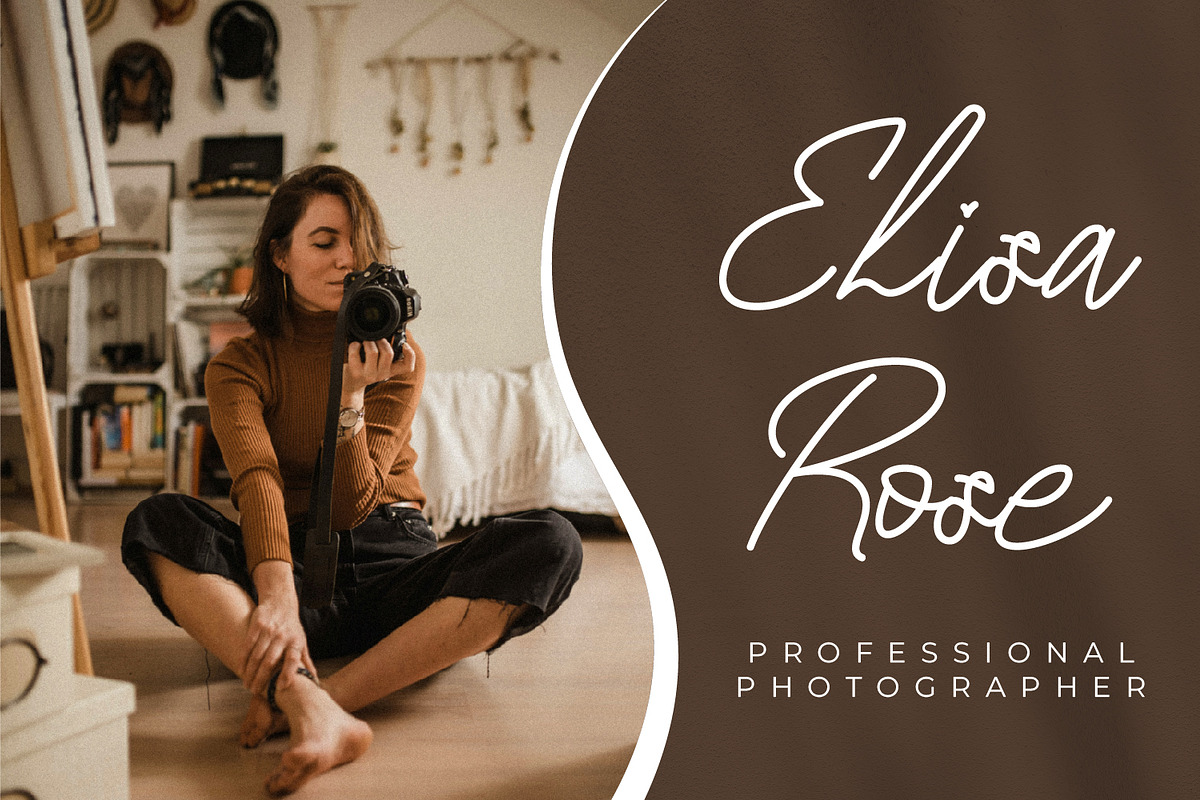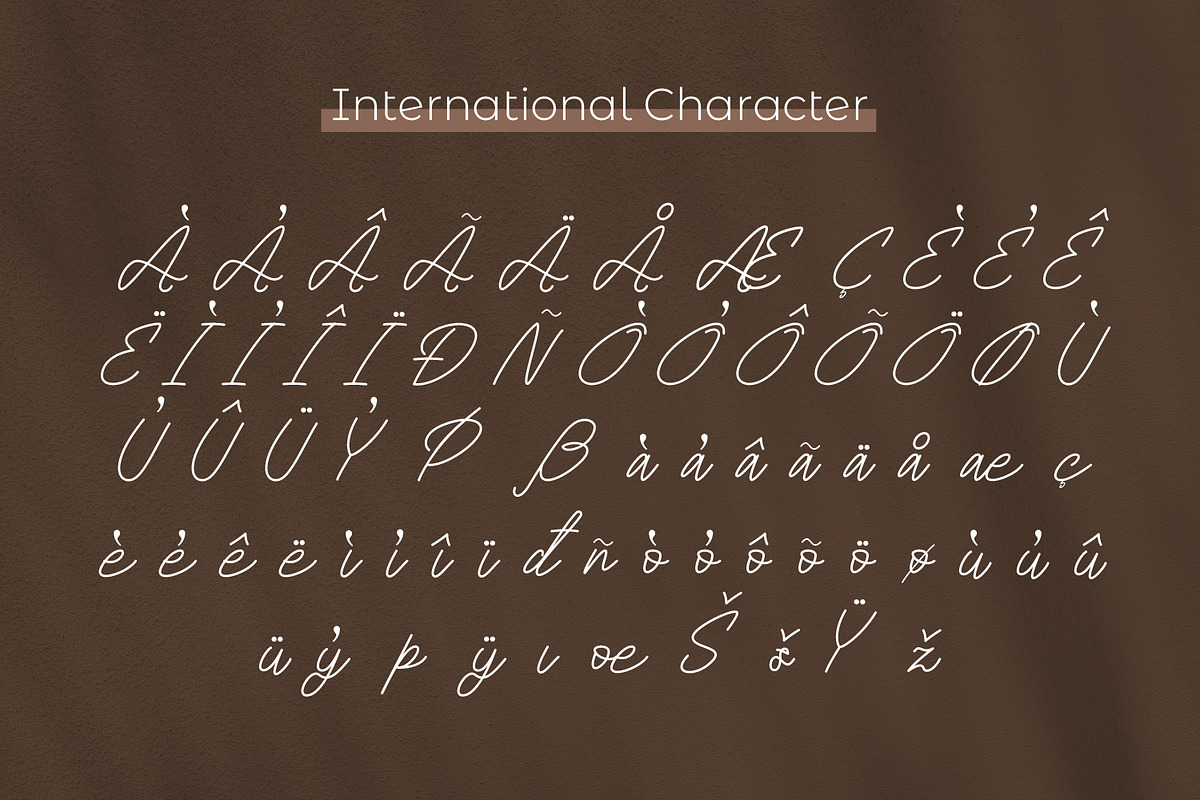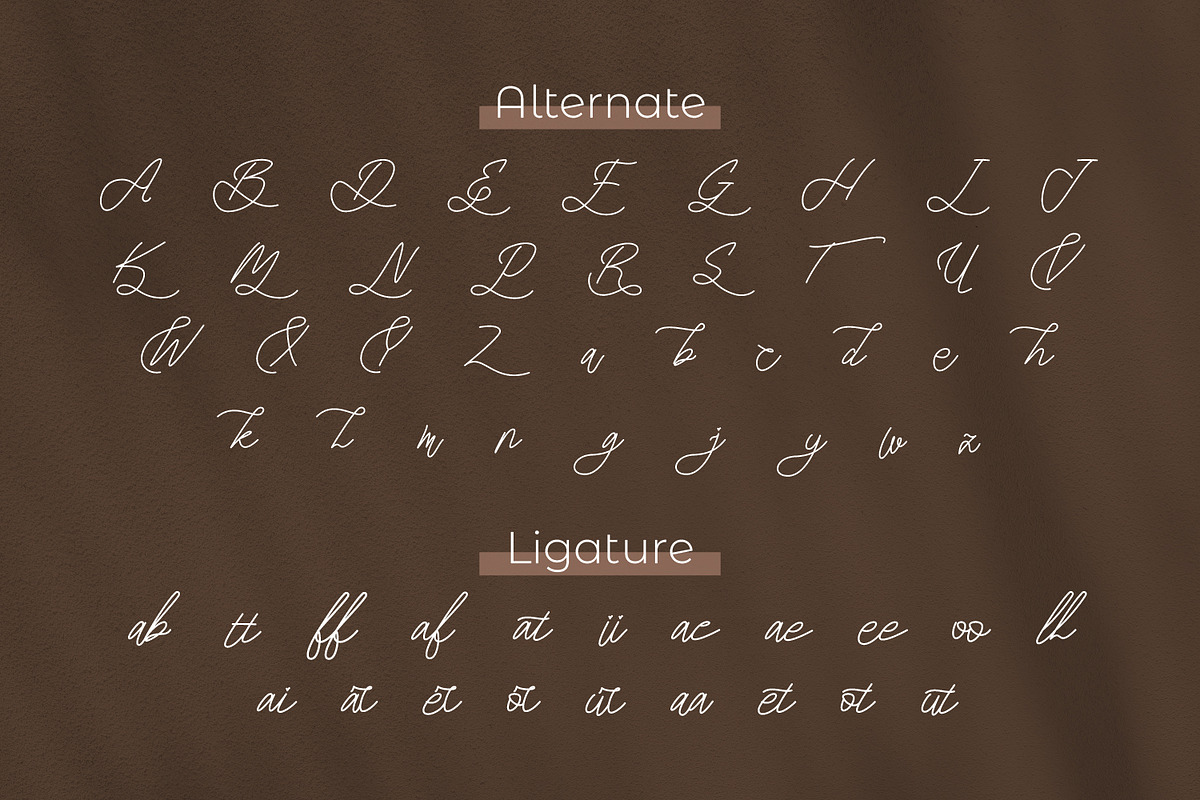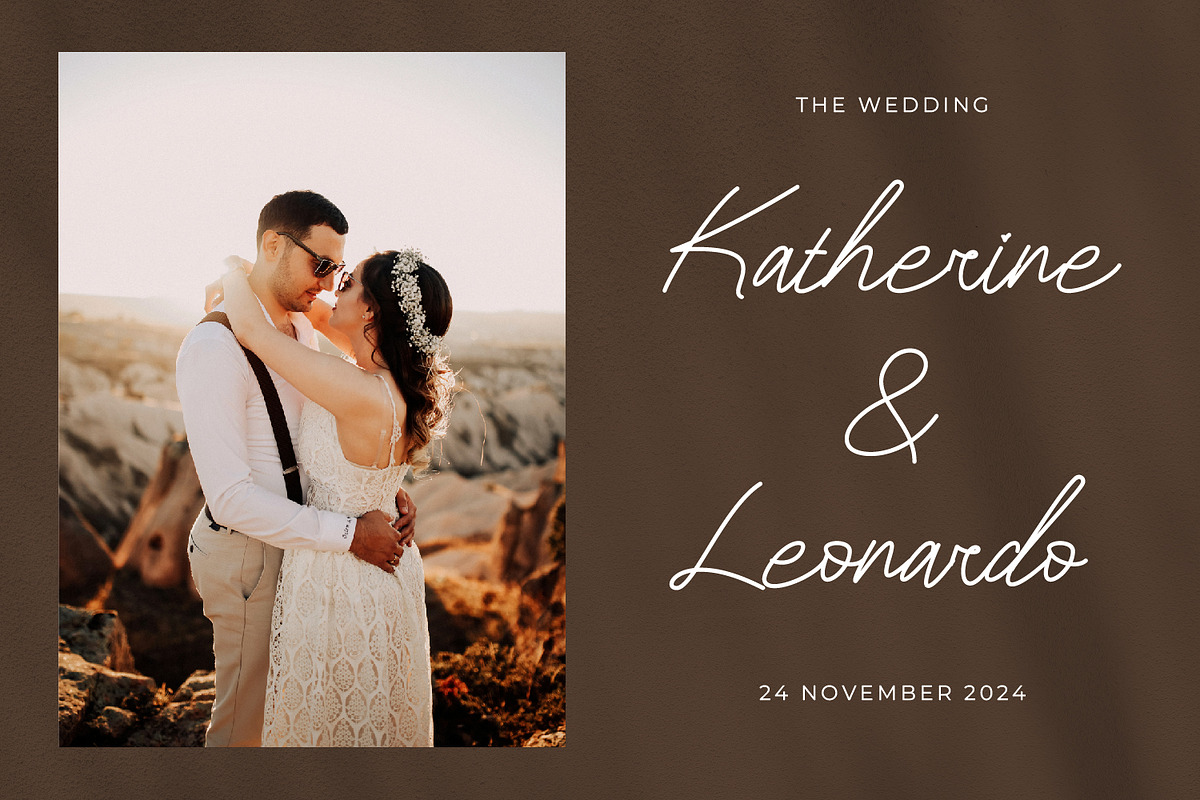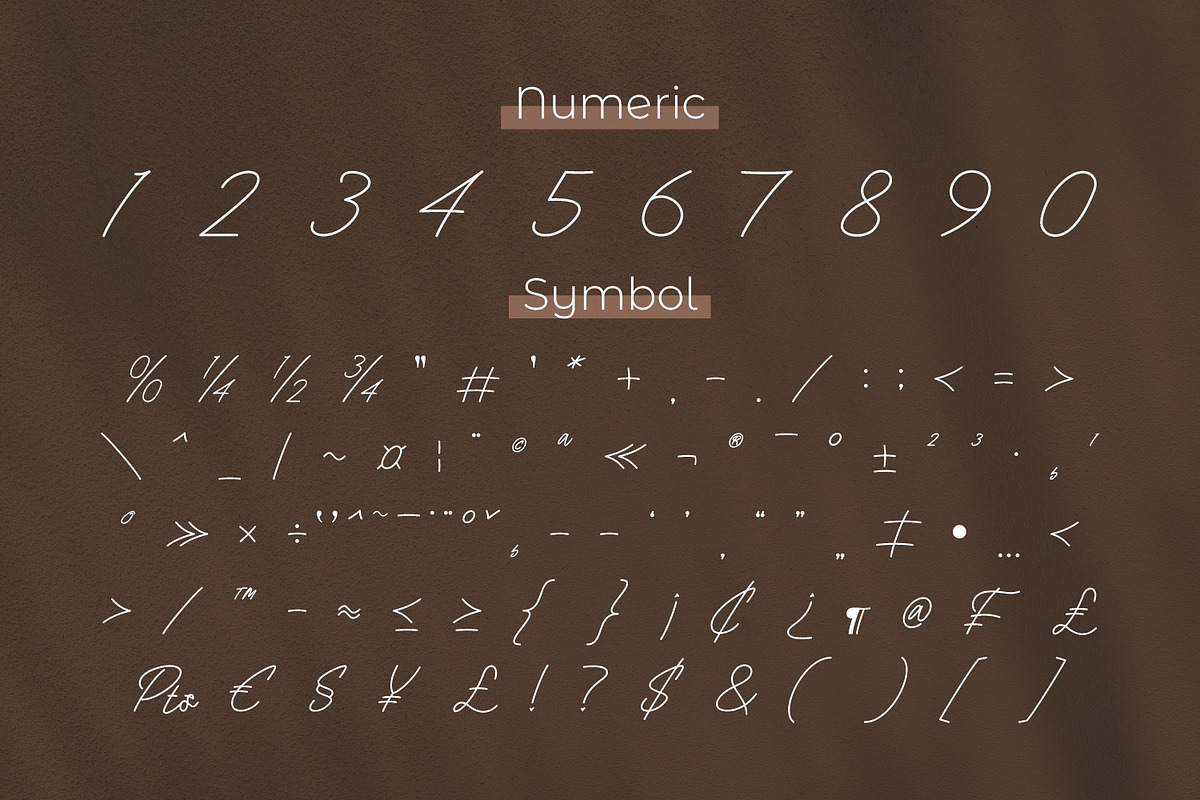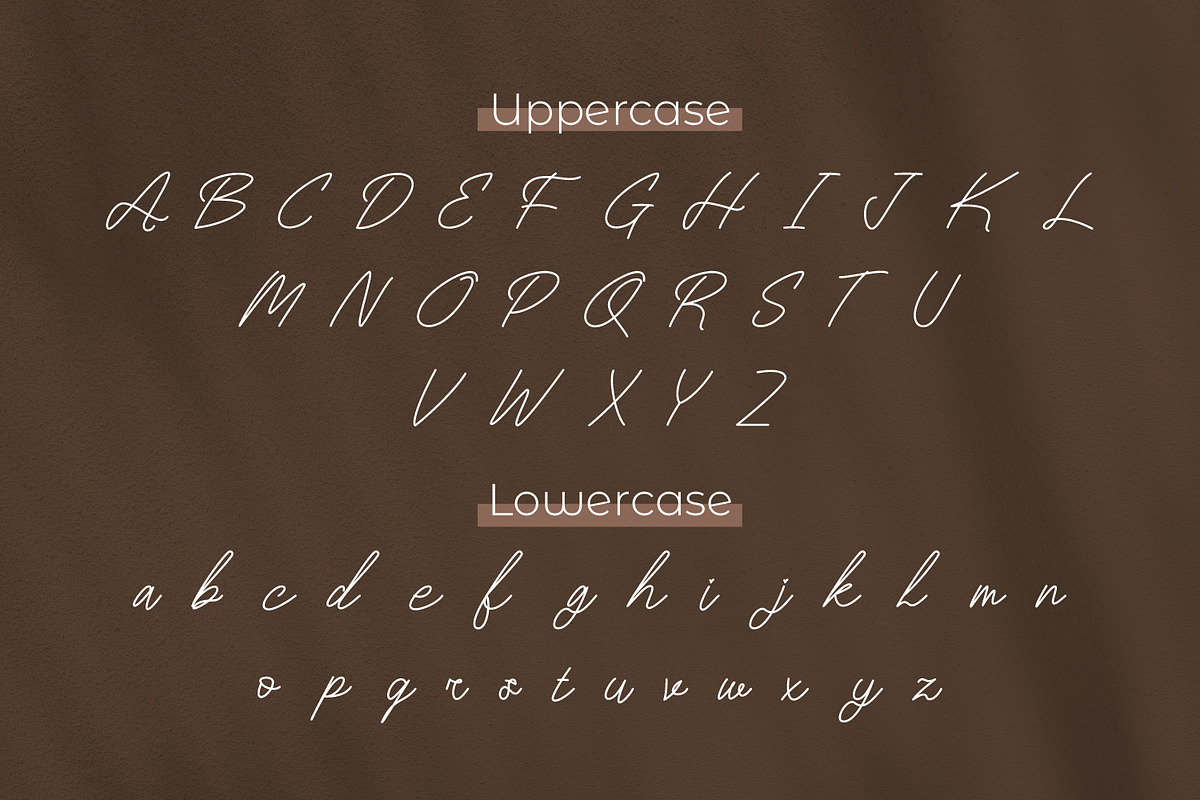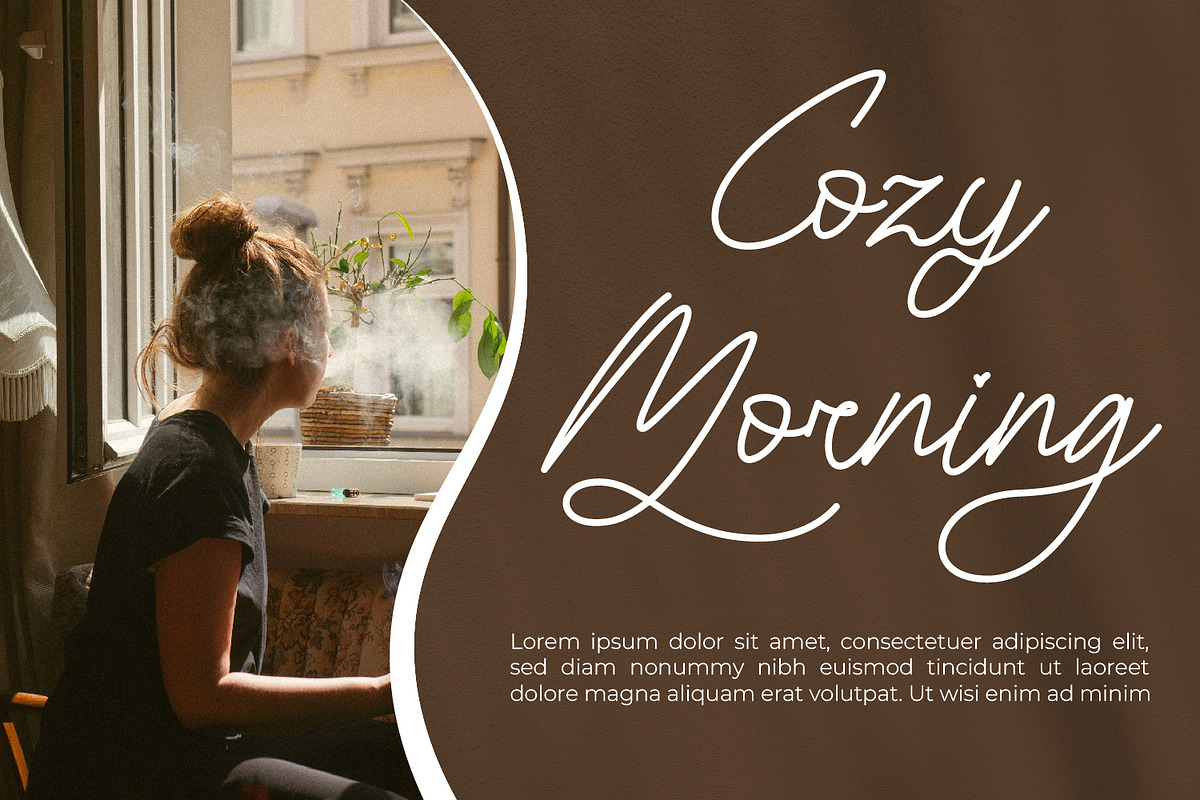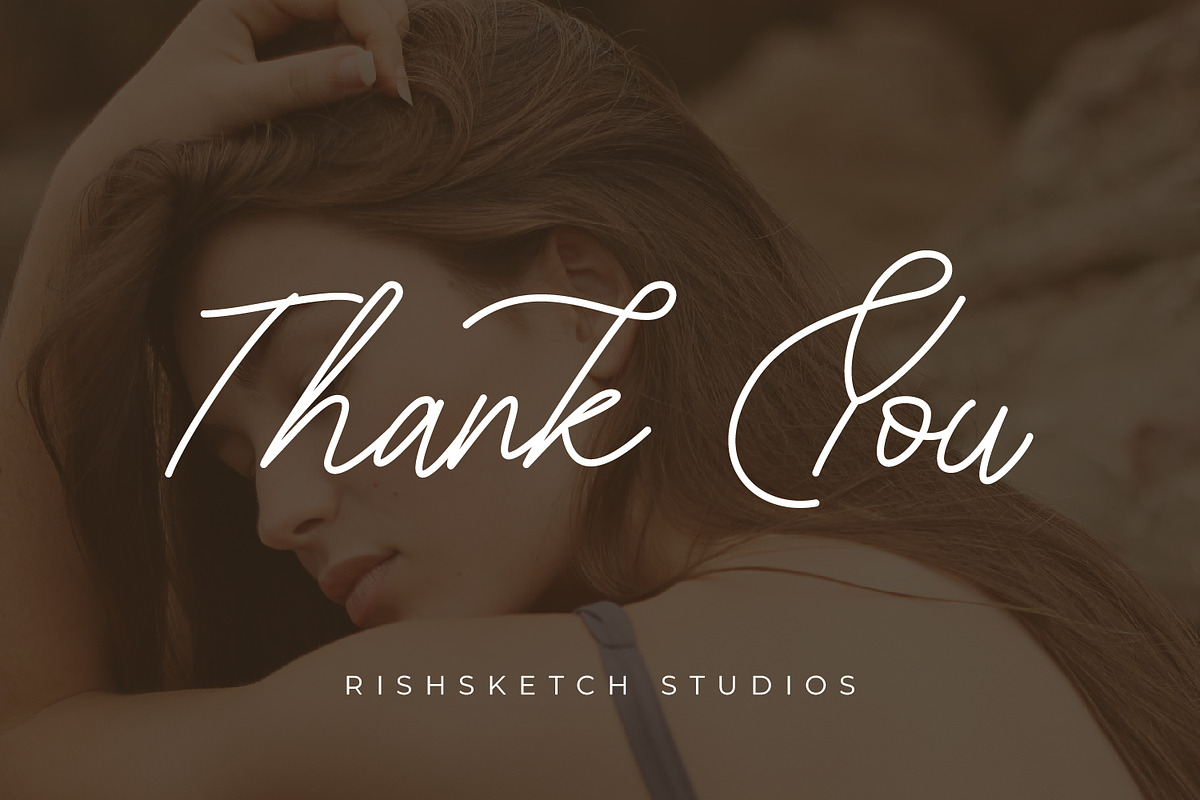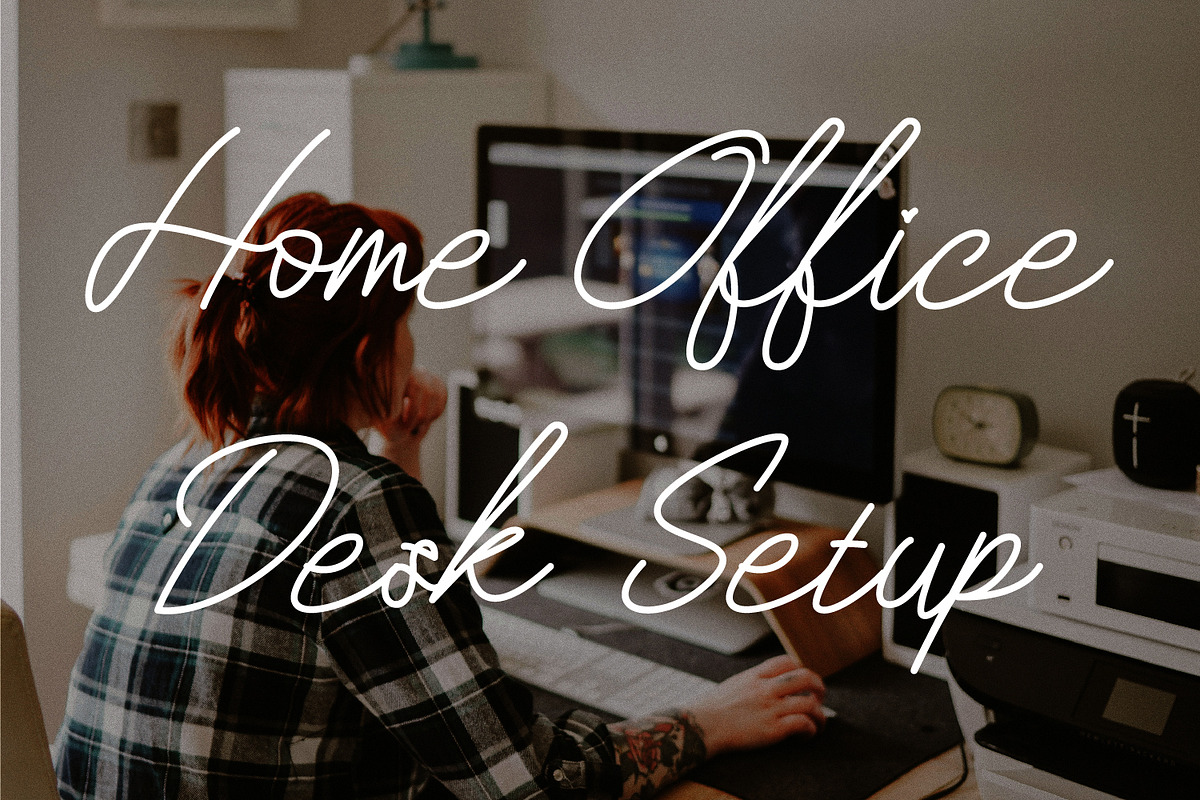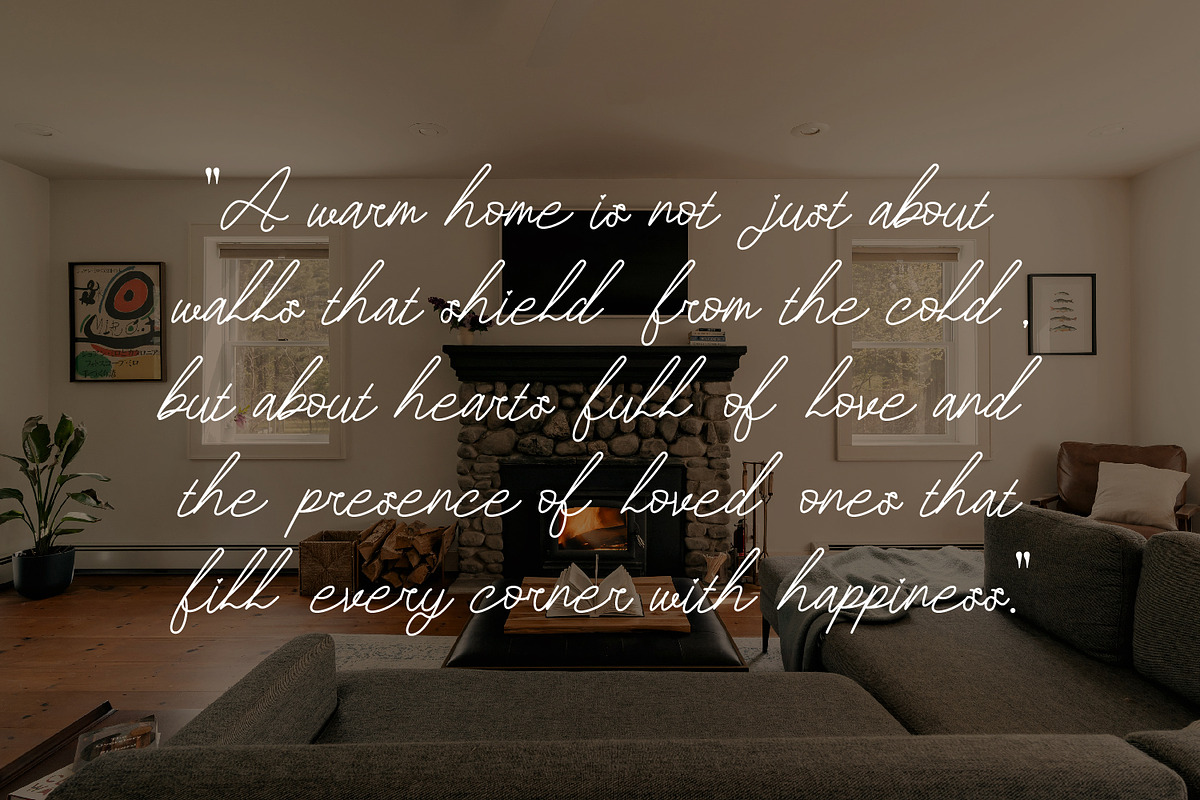
Grellina
Grellina - Monoline Script Font, from Rishsketch Studios, is a premium Script Font, perfect for any project that requires a distinctive, and premium feel.
- Ligature, Alternate & amp; Multilingu